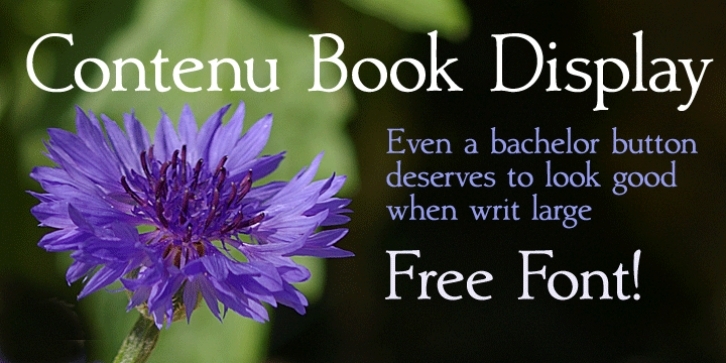
Because Contenu is designed for text use, it is spaced for body copy in the 9-12 point range. That is far too much for heads, subheads, and the like. So I made this display version of Contenu Book to use for headers. In the process of tightening the spacing at the very large sizes, I also made some minor modifications to the glyph shapes to make this version a little more elegant.
Contenu is the new book font family designed for an upcoming book on book family design. The name is French for content and this is what the family is designed for: text, body copy, and book layout. If it has a style, it is a modern take on oldstyle serif font using Jenson as a mask.
There are no plans for display versions of the bolder weights or the italics. If you want them, use Contenu Bold, Contenu Black, or any of the four italics and tighten the tracking.